Best Sans Serif Fonts for Web Design: 20+ Picks from a Pro Designer
Let me be honest with you — I used to think sans serif fonts were just… there. You know? The safe choice. The ‘I don’t want to mess up’ choice. But then I started digging deeper. And wow — I was wrong.
There’s a whole universe inside Sans Serif Fonts that goes far beyond ‘clean and simple.’ Some are bold and punchy. Some are soft and almost handwritten. Others feel futuristic, elegant, playful, or even a little nostalgic.
Over the years, I’ve built a personal collection of favorites — the ones I keep coming back to for logos, posters, branding, websites, and everything in between. And in this article, I’m sharing them with you.
No fluff. No boring technical lectures. Just real, honest mini-reviews from one designer to another. Each font here has a personality, a purpose, and a place in your toolkit.
So grab a coffee, scroll through, and let’s find your next go-to Sans Serif Fonts together.
1. Adorable Handwriting Sans Serif Font
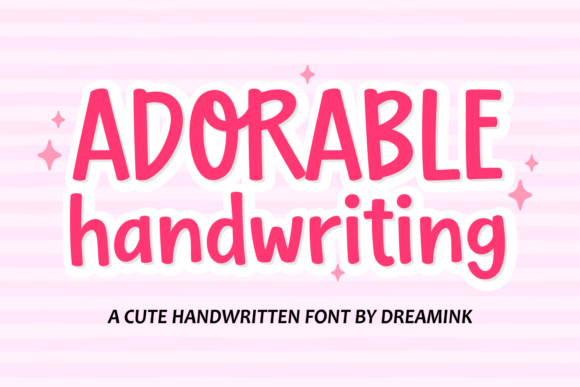
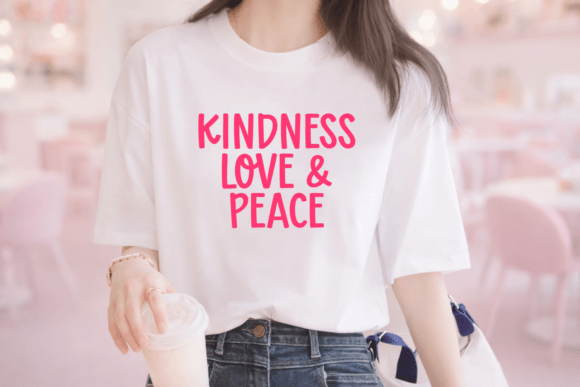
Okay, I’ll admit it — this one just makes me smile. Every time I use Adorable Handwriting, it feels like I’m handing someone a little love note. The rounded, bubbly shapes are soft, not childish, and the weight stays nice and even so it’s actually readable on screens.
I’ve used this Sans Serif Fonts gem for nursery wall art, kids’ ebook layouts, and even snack packaging mockups. It brings instant warmth. Big plus? Pastel colors and tiny doodles look amazing with it. If you need your brand to feel young, playful, and huggable — this is your font.
2. Nura Sans Serif Font
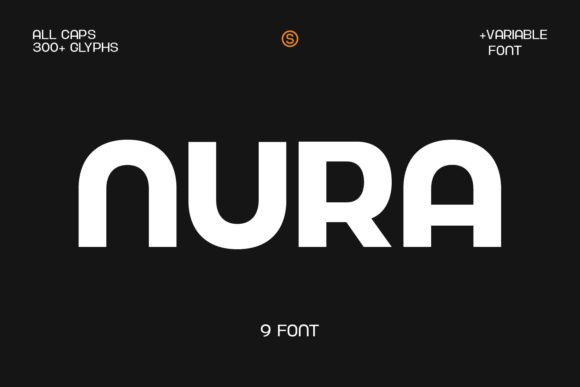
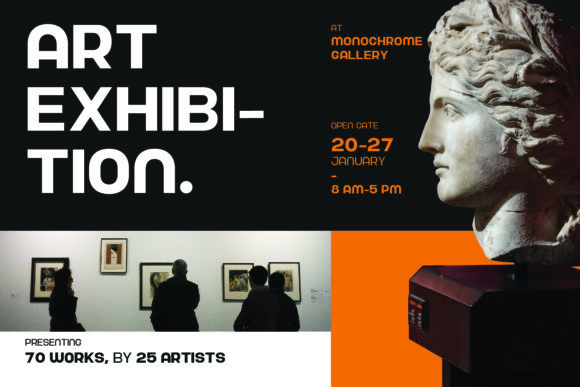
Nura is my quiet confidence font. No flashy tricks — just clean, neat lines that work every time. I reach for this Sans Serif Fonts beauty when I need something professional but not cold. Posters? Yes. Headlines and subheadings? Absolutely.
But where it really shines is logo designs and branding — it gives that ‘I mean business but I’m still nice’ energy. Big advantage: it plays well with others. Easy to pair, easy to read, easy to love.
3. Agootack Sans Serif Font
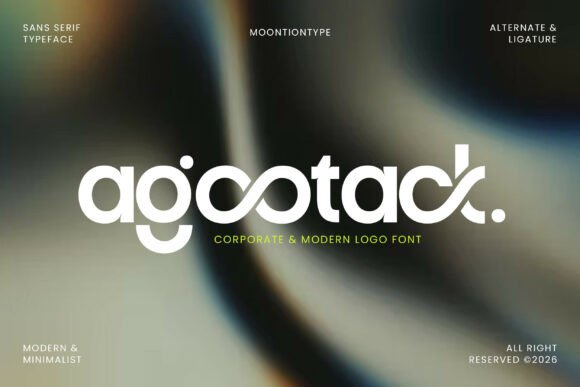
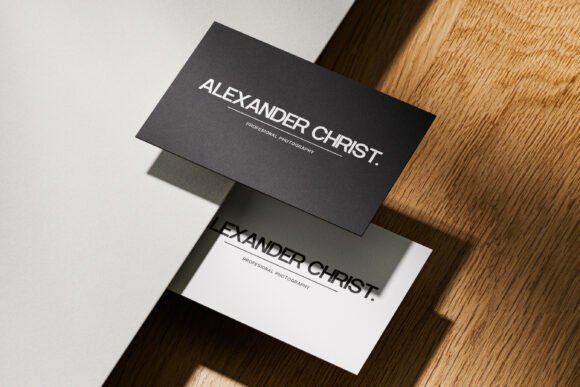
This one feels like the future — but in a calm, grown-up way. Agootack is my go-to Sans Serif Fonts pick when a client says ‘clean but not boring.’ Those smooth curves and stylish ligatures? Chef’s kiss.
I’ve used it for tech startups, logo designs, and corporate branding that actually has a soul. Works just as beautifully on a website as on a sleek packaging mockup. Bonus: the alternates let you play without breaking the minimalist vibe. Modern, professional, but with a little wink.
4. Opinio Sans Serif Font
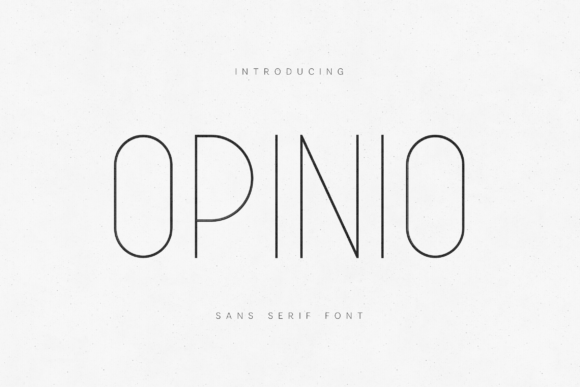
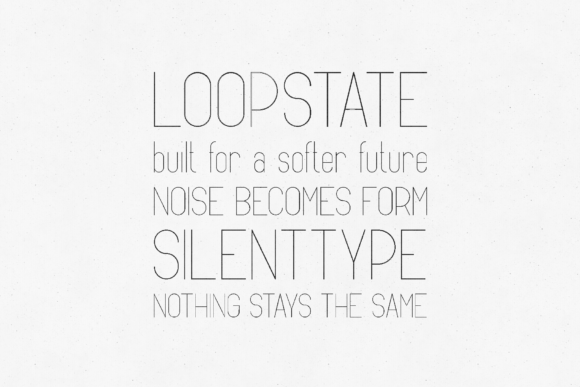
Thin. Elegant. Breathes easy. That’s Opinio. When a project needs to whisper ‘luxury’ instead of shout it, I grab this Sans Serif Fonts gem. Those delicate geometric lines work magic on editorial layouts, high-end branding, and UI design where you don’t want the font to fight for attention.
It’s airy but never fragile — stays readable on screens and in print. Perfect for when ‘less is more’ actually means something. Sophisticated without being snobby.
5. Kolama Sans Serif Font
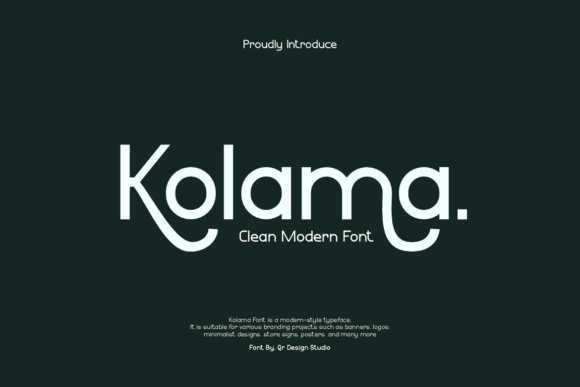
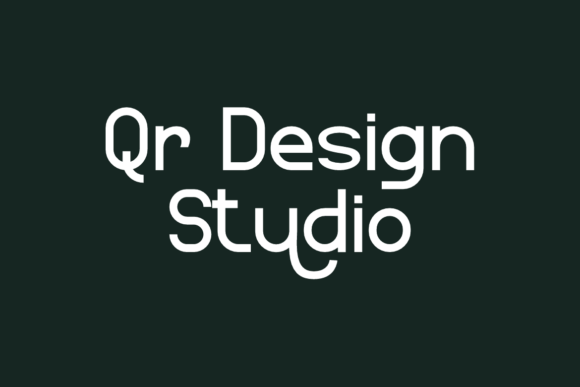
This one dances. Seriously — look at those ‘K’ and ‘l’ swooshes. Kolama takes clean Sans Serif Fonts structure and adds this gorgeous, flowing personality. I use it for logos, store signs, banners — anywhere a brand needs to feel both modern and artistic.
It’s minimalist but never boring. The rounded letters feel friendly, those elongated tails add elegance. Plus it’s PUA-encoded so you can actually use all those beautiful swashes without fighting your software. Fluid, refined, memorable.
6. Talina Sans Serif Font
Bold, bouncy, and impossible to ignore — that’s Talina. When I need a Sans Serif Fonts option that screams ‘look at me’ but in a friendly way, this is the one. Those heavy rounded curves feel like a happy shout.
Perfect for food packaging, kids’ brands, or poster headlines that need to pop from across the room. The ligatures are actually fun to play with, and multilingual support means I don’t get stuck later. Confident, chunky, and full of personality — without losing readability.
7. Moon Walk Sans Serif Font
Elegant but not extra — that’s Moon Walk. Those little curved ornaments at the letter ends? Pure magic. This Sans Serif Fonts beauty feels like it belongs both right now and ten years from now.
I’ve used it for invitations, calendars, editorial designs, and brand templates where I need sophistication without shouting. It’s minimalist but has soul. Works just as beautifully on a poster headline as on a fancy brochure. Clean, futuristic, but somehow still warm. One of my quiet favorites.
8. Cult Sans Serif Font
This font means business — the good kind. Cult Branding has this confident, geometric structure that just feels solid. I reach for this Sans Serif Fonts weapon when I’m building luxury brands, fashion editorials, or architecture studio identities.